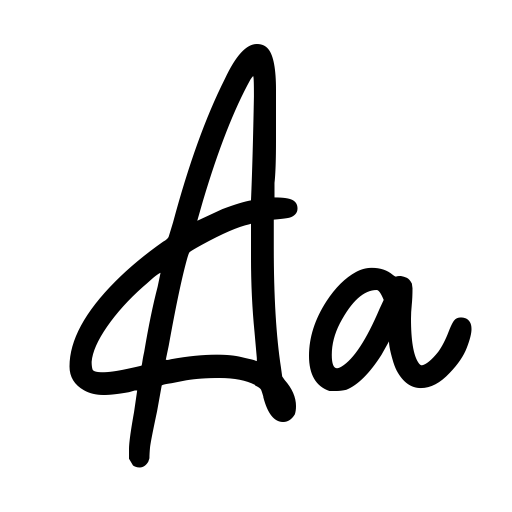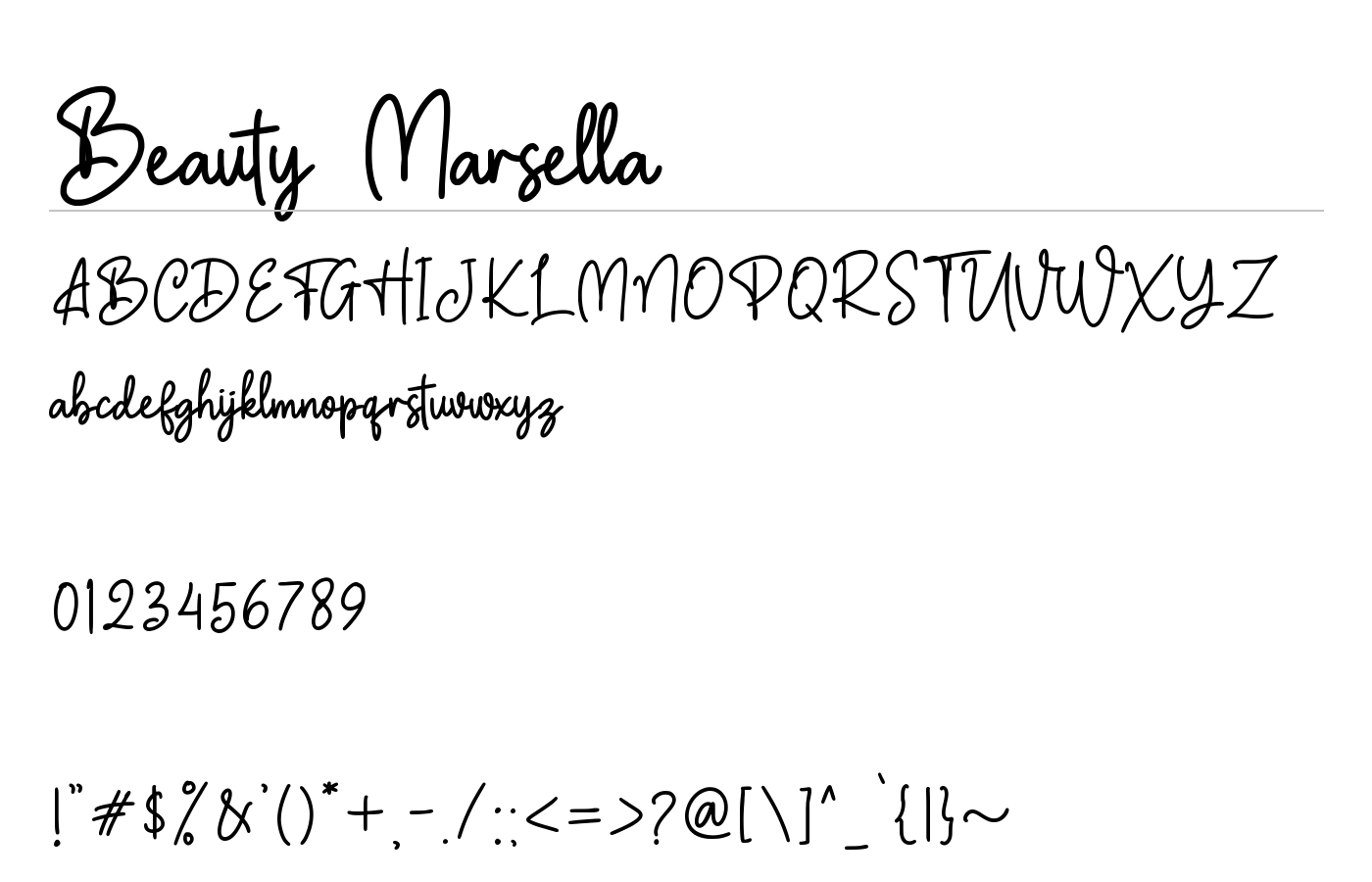
Beauty Marsella is a playful and elegant handwritten script font with a casual, friendly vibe. Its light weight and slightly tall x-height give it a clean and airy feel, making it perfect for branding, invitations, and creative projects where a personal touch is desired. The font’s flowing letterforms blend modern charm with approachable warmth, ideal for fashion, beauty, and lifestyle designs.
Beauty Marsella Font
About Beauty Marsella Font
| Font family | Beauty Marsella Font |
| Designer | Mozatype.std |